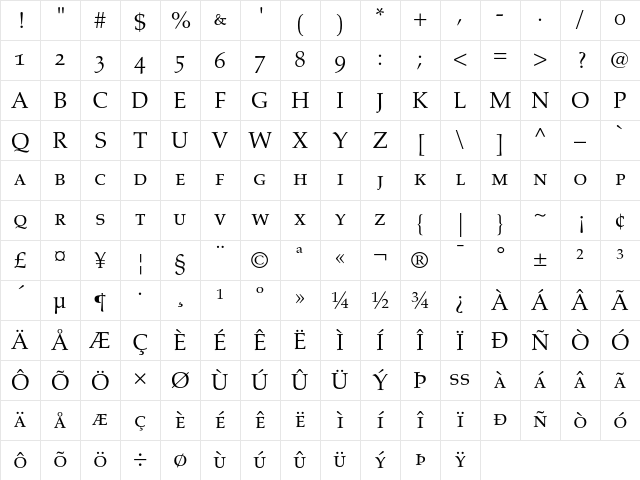
Aldus Roman Small Caps & Oldstyle Figures
Style: Roman Small Caps & Oldstyle Figures
Design Context for Aldus
Aldus carries the refined structure of traditional serif typography, with bracketed terminals and considered proportions that communicate credibility and craft.